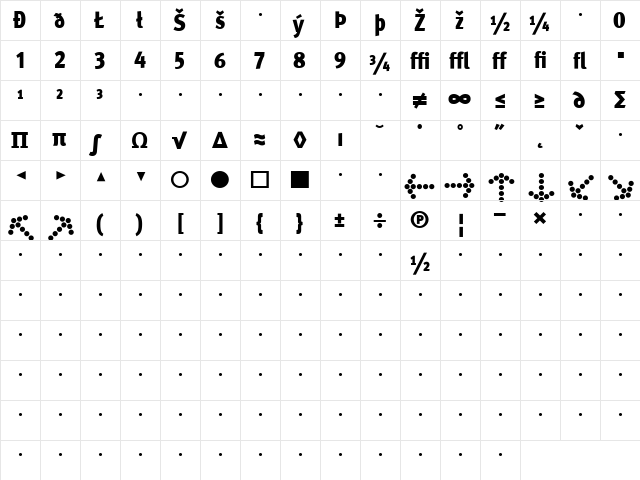
MetaCondBlack Black
Design Context for MetaCondBlack Typeface
MetaCondBlack offers clean, dependable letterforms without strong stylistic allegiance, making it a practical choice for designers who need flexibility. Its narrow stance lets it pack a punch even in space-constrained designs.